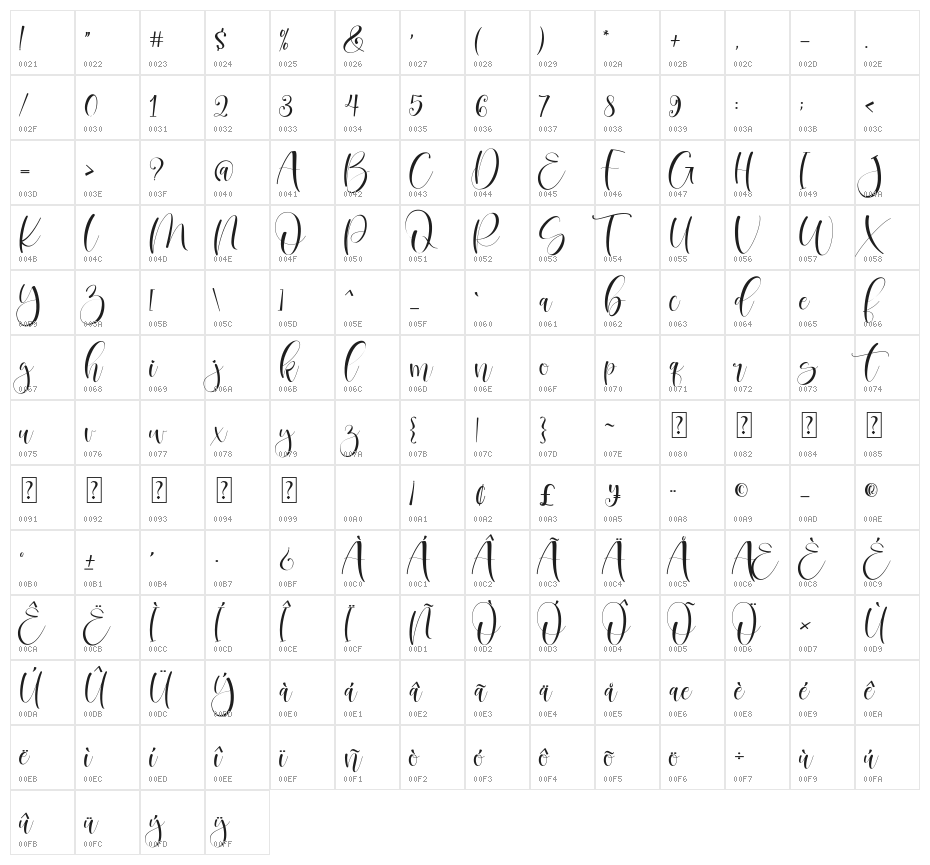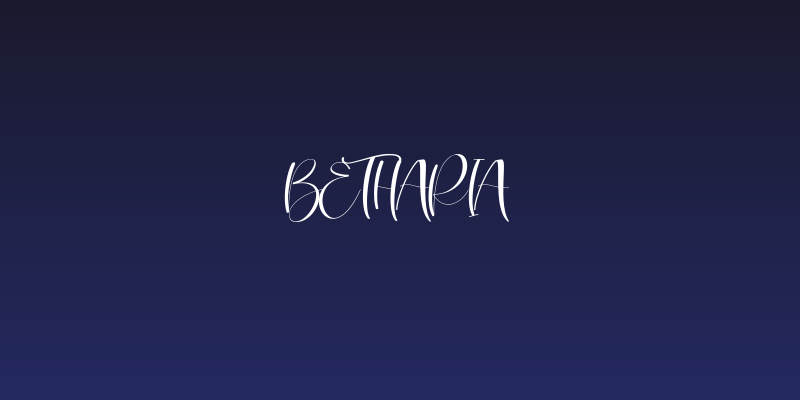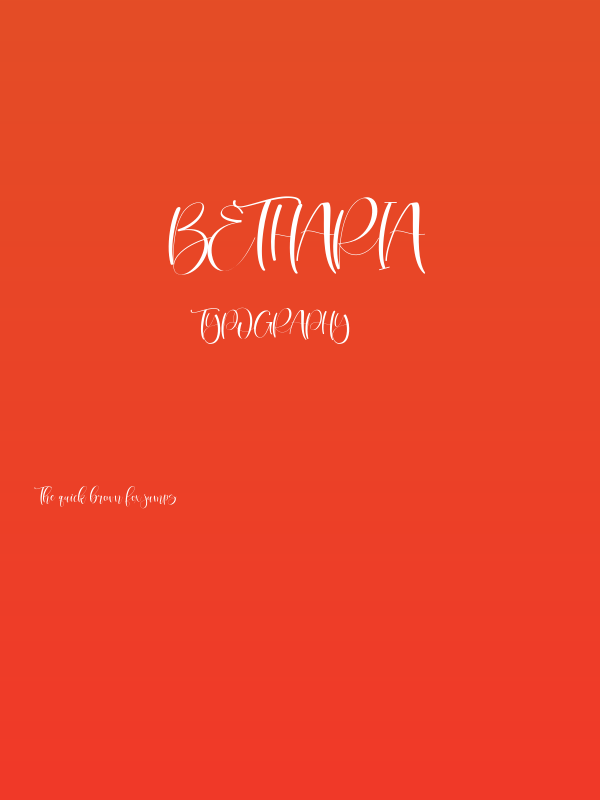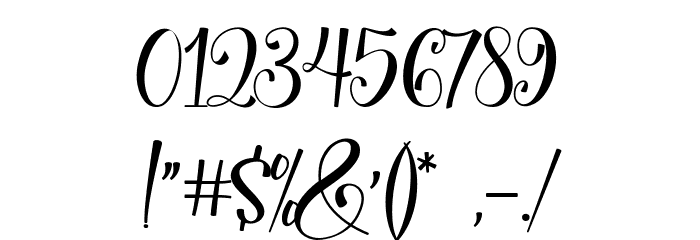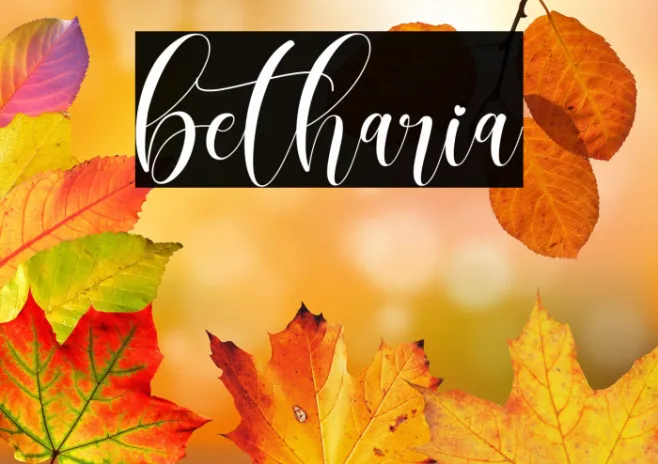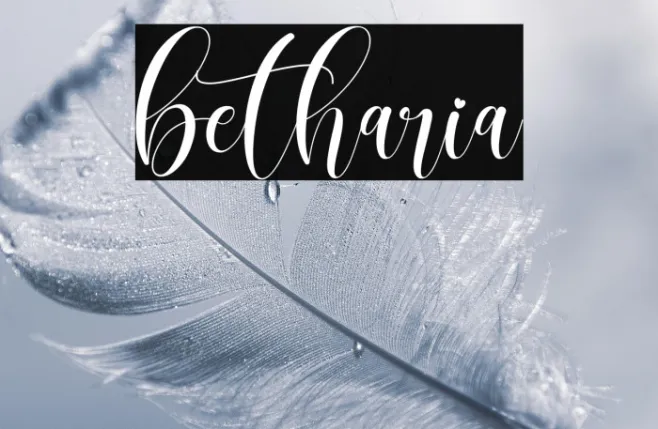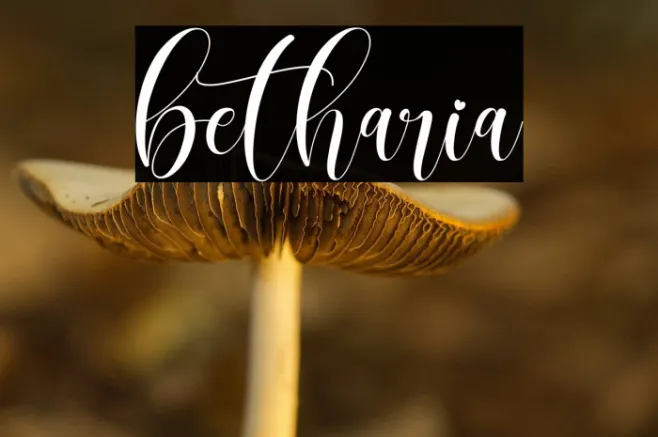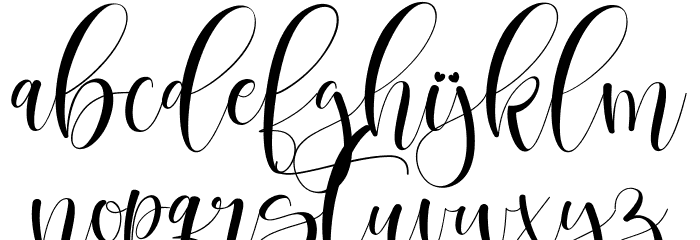
betharia Font
betharia Description
This elegant script font features a flowing, cursive style with high contrast between thick and thin strokes. The letters are intricately designed with graceful loops and swashes, giving it a sophisticated and artistic appearance. The uppercase letters are particularly ornate, with extended flourishes that add a touch of drama. The lowercase letters maintain a consistent style, offering a harmonious blend with the uppercase. The numerals and special characters are equally stylized, ensuring a cohesive look across all text. This font exudes a sense of luxury and refinement, making it ideal for projects that require a touch of elegance.
| Proposed Projects | Ideal for wedding invitations, luxury branding, elegant stationery, and artistic posters. |